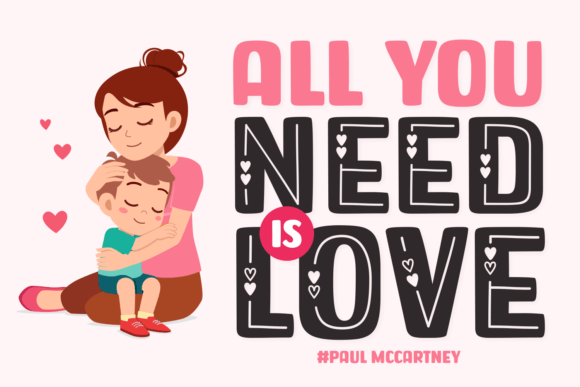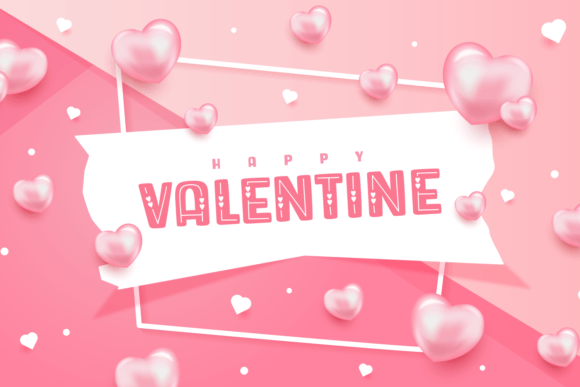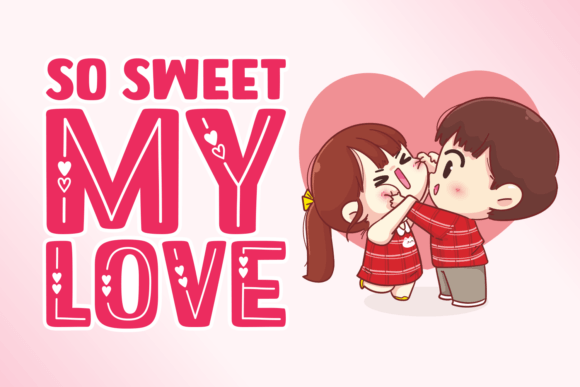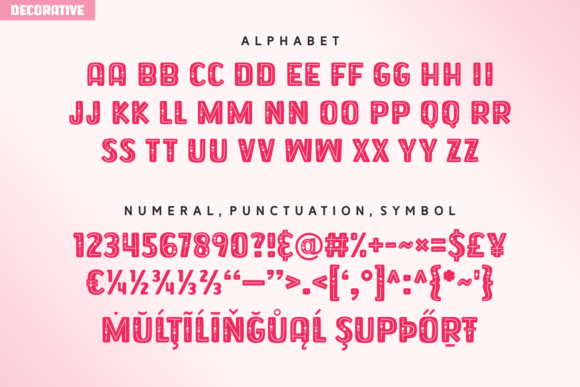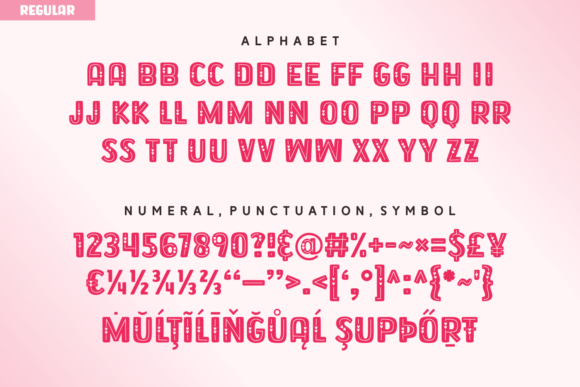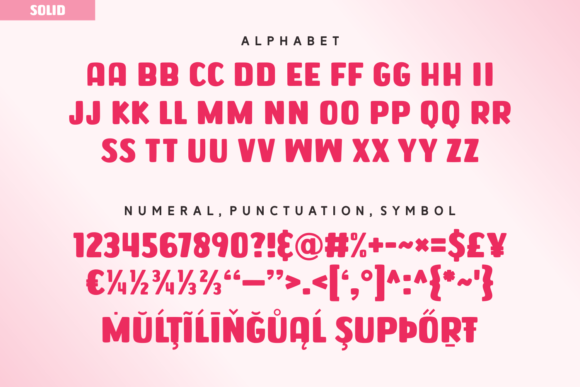
Introduction to Need Love Font
Need Love is a cute and eye-catching decorative font.
The simplicity and kindness of the font will add to each and every design idea a sense of loveliness .
Key Features of Need Love Font